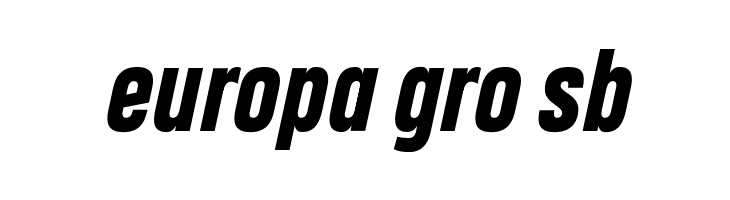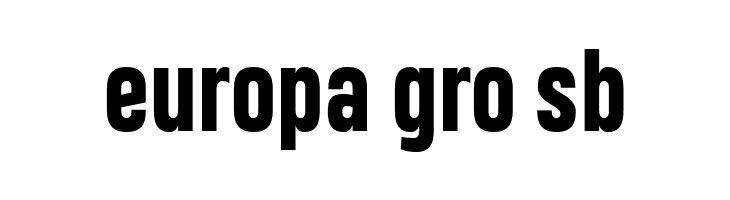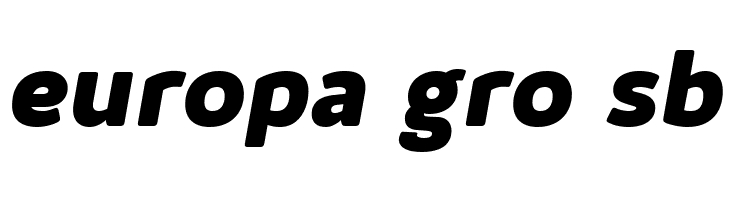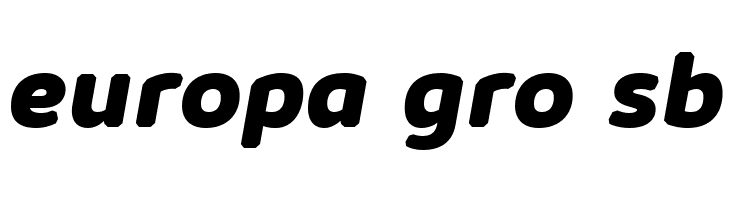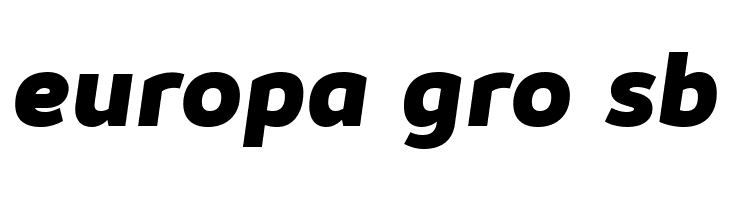
A bold, italic typeface with a modern and dynamic style.
A bold, modern font with thick strokes and tight spacing, perfect for impactful designs.
A bold, italic sans-serif font with a dynamic and modern style.
A bold, italic font with rounded edges and a dynamic style.
A bold, italicized typeface with thick strokes and a dynamic slant.
A bold, rounded font with smooth curves and consistent weight.
A bold and robust typeface with smooth, rounded characters.
A bold, rounded font with a modern and friendly style.
A bold, rounded, and italicized font with a modern and dynamic style.
A bold, modern typeface with strong, uniform strokes and a slightly condensed width.